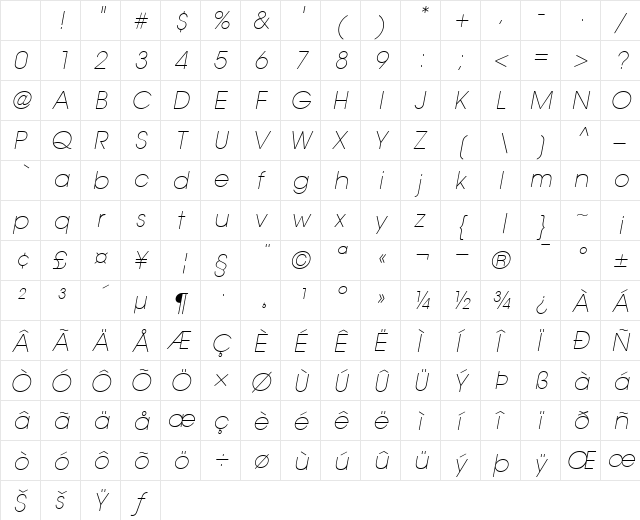
ITCAvantGardeGothic-ExtraLight Extra LightItalic
Style: Extra LightItalic
Complete ITCAvantGardeGothic-ExtraLight Extra LightItalic glyph index. Displaying only characters natively supported by ITCAvantGardeGothic-ExtraLight Extra LightItalic font.
Design Context for ITCAvantGardeGothic-ExtraLight
ITCAvantGardeGothic-ExtraLight takes a clean, functional approach - its unadorned letterforms prioritise legibility and work reliably across screen and print environments. The slanted form adds forward momentum and visual energy. Its slender proportions lend an understated elegance to any composition.
Font Pairing: Pair ITCAvantGardeGothic-ExtraLight with a medium or bold serif for headlines - the weight contrast creates an elegant, high-end feel.
Pro Tip: Use ITCAvantGardeGothic-ExtraLight with generous tracking and line-height for the most luxurious effect - light sans-serifs reward spacious, considered layouts.